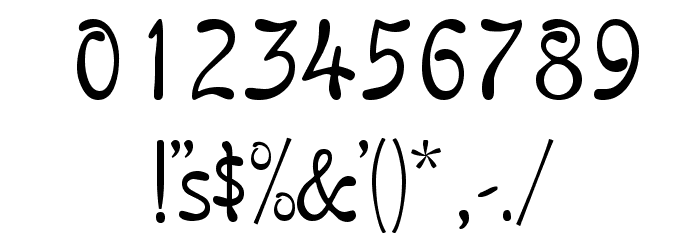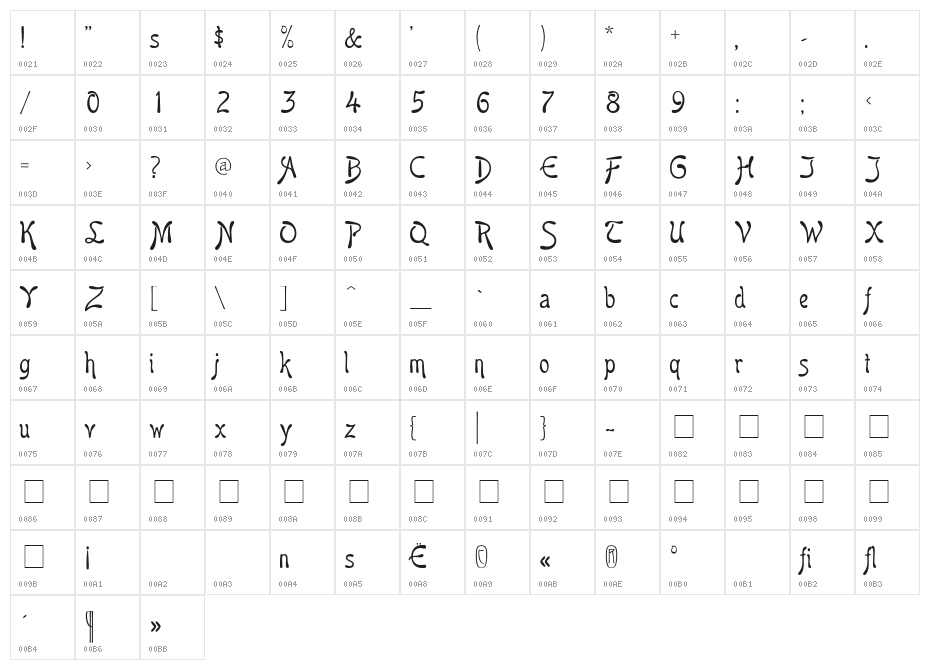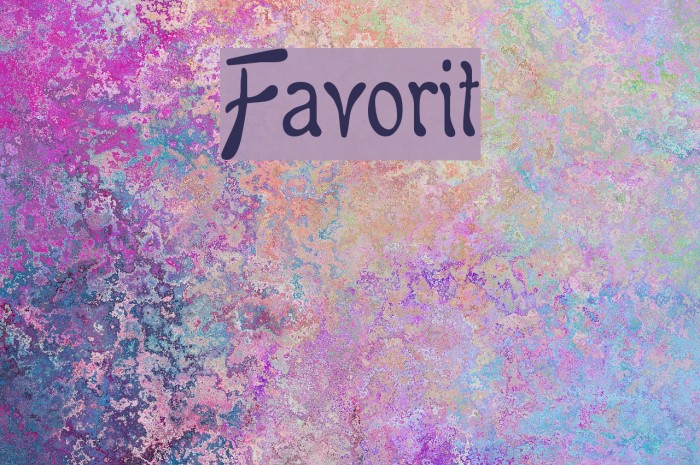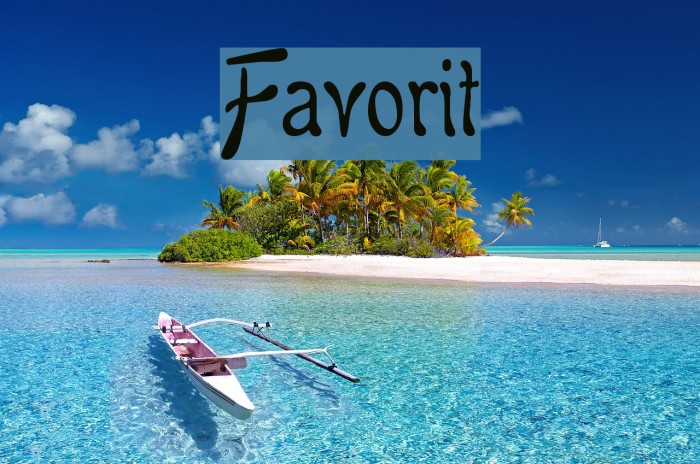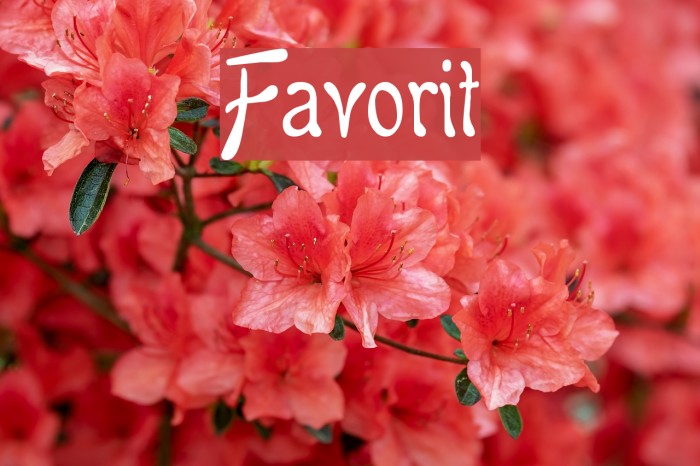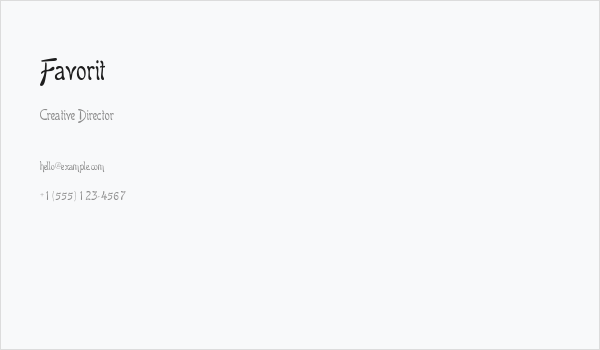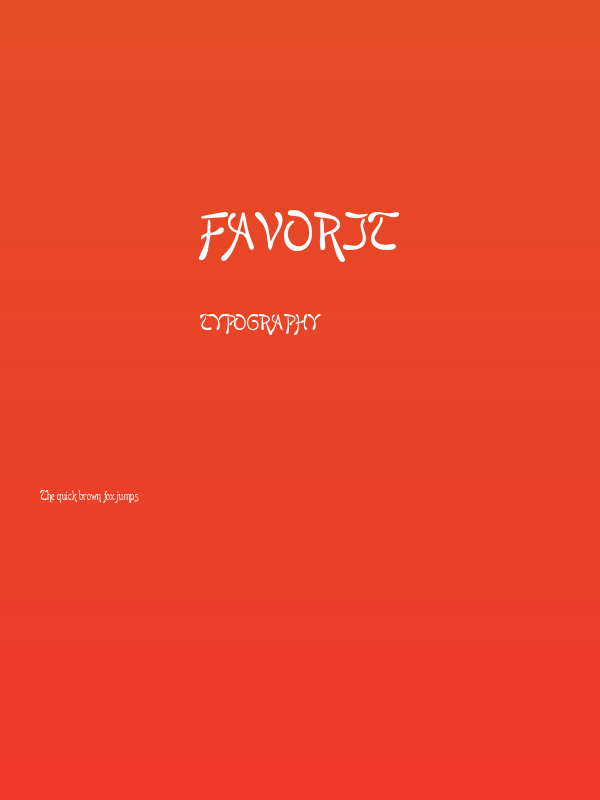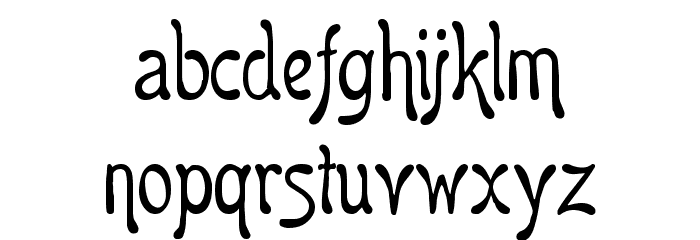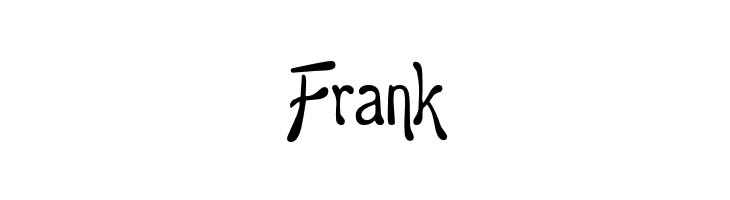
Favorit Font
Favorit Description
This font features a playful and whimsical design, characterized by its fluid and curvy letterforms. The strokes vary in thickness, giving it a hand-drawn appearance that adds a touch of personality and charm. The uppercase letters are bold and slightly irregular, while the lowercase letters maintain a consistent flow, enhancing readability. The numerals and special characters follow the same playful style, making them stand out. This font is ideal for projects that require a fun and informal touch, such as children's books, greeting cards, or creative branding.
| Proposed Projects | Children's books, greeting cards, creative branding, playful posters. |